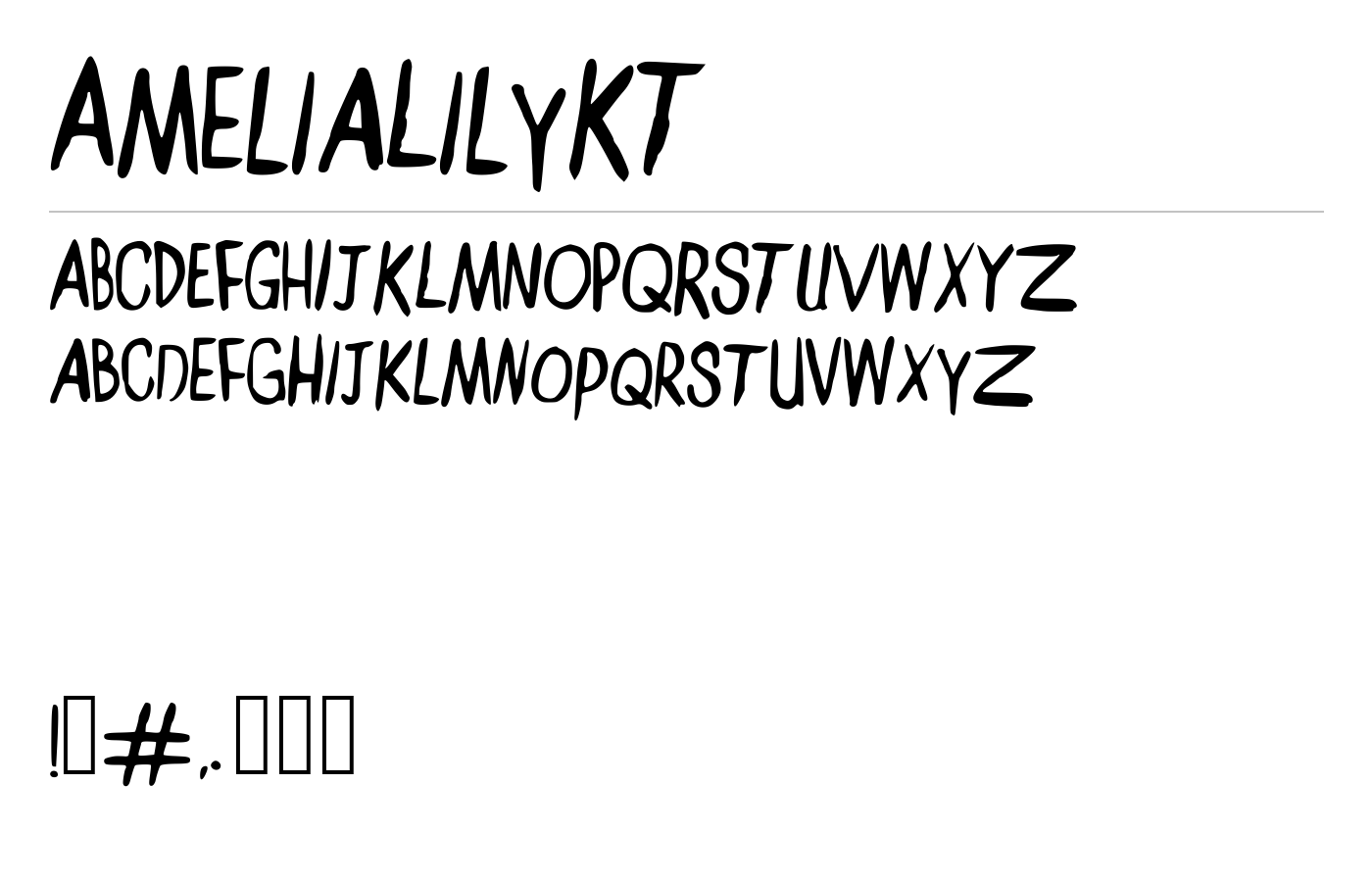
AmeliaLilyKT is a lively and casual handwritten font with a playful, informal vibe. Its tall, slightly irregular letterforms create an approachable and friendly feel, perfect for creative projects, informal branding, or fun headlines that want to convey personality and energy. This font works well where a personal, hand-drawn touch is needed, adding warmth and charm to designs without sacrificing readability.
AmeliaLilyKT Font
About AmeliaLilyKT Font